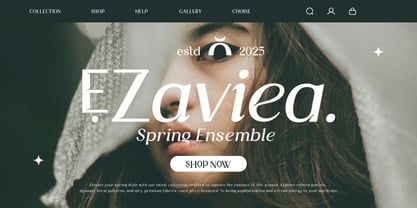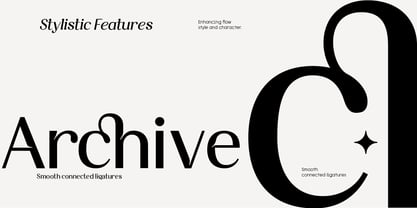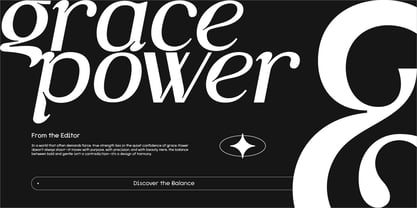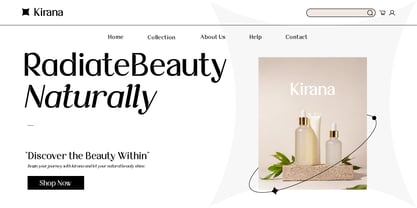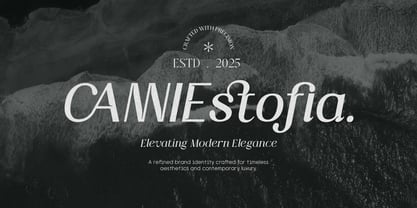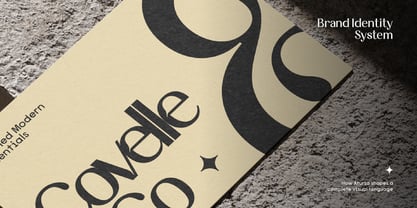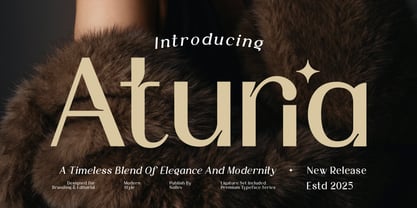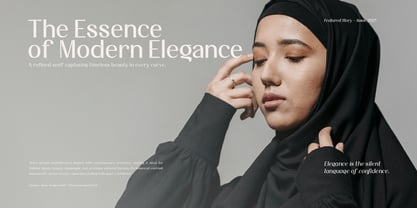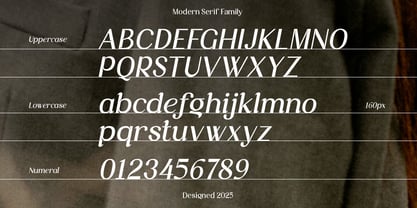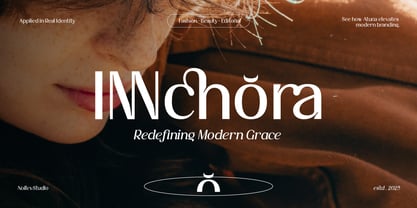
Aturia
by Nollev
The Aturia Font Family was designed by Akhmad Hidayat and published by Nollev. Aturia contains 4 styles and family package options. More about this family
Aturia is a modern high-contrast sans serif designed for versatility and visual impact. Its strong geometry and refined contrast create a confident, informative tone that works beautifully across branding, editorial, and display design. The typeface includes four styles — Deco Regular, Deco Italic, Regular, and Italic — offering a balance between expressive decorative details and clean readability. With its sharp forms and subtle rhythm, Aturia delivers a bold yet sophisticated presence in any layout.